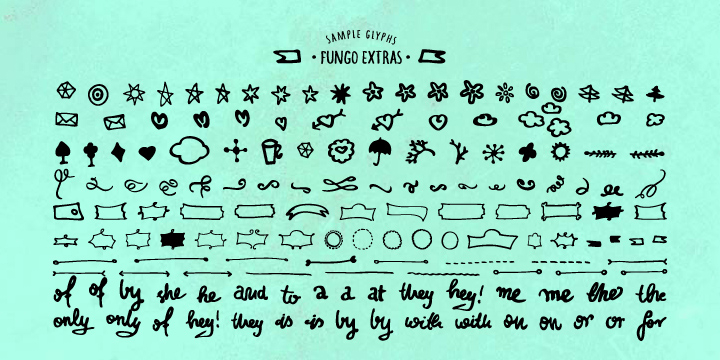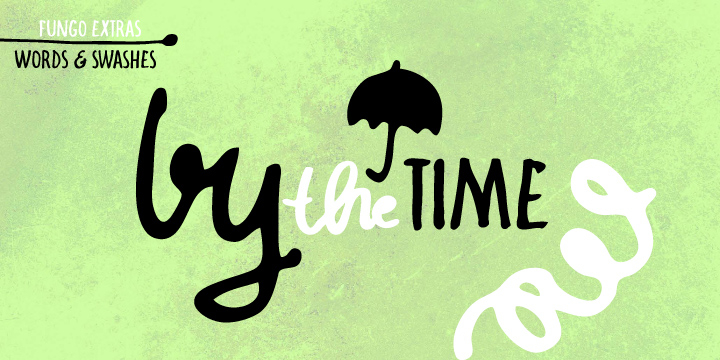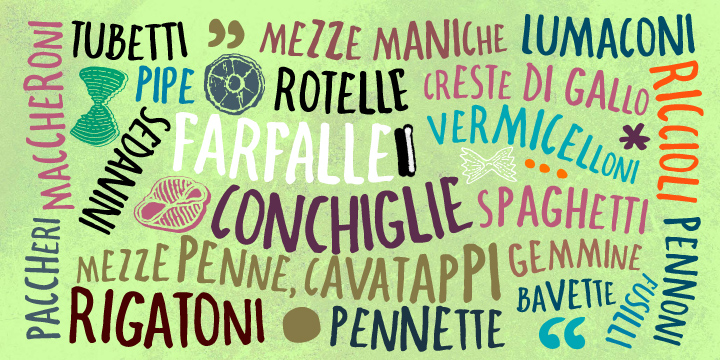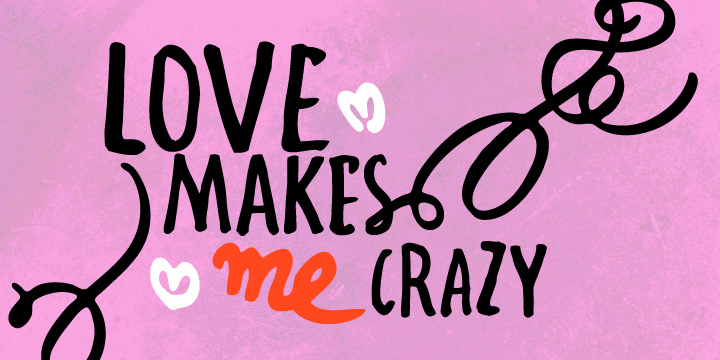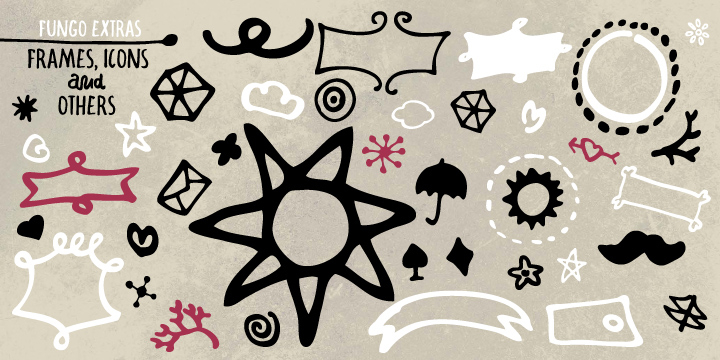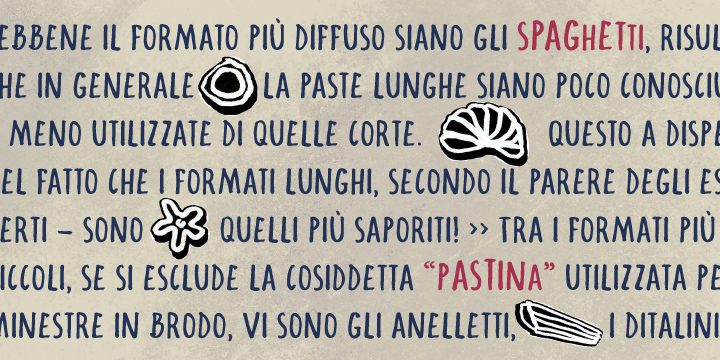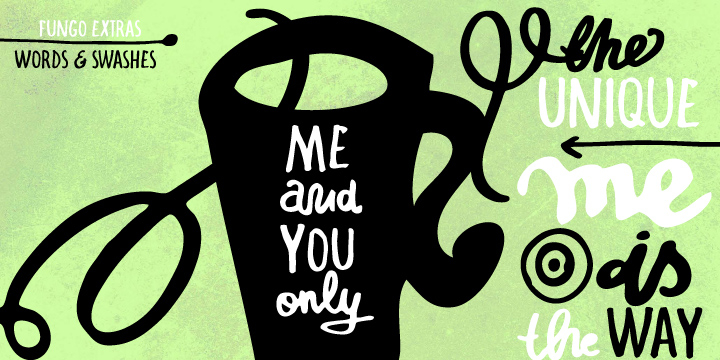
Designed by Magdalena Boffito, Fungo is a dingbat and hand drawn font family. This typeface has two styles and was published by mezzo-mezzo.
Fungo is a handwritten font designed with flat marker. It brings 3 alternates for each letter and number (426 Glyphs).
Fungo Extras offers a large set of graphic extras, including words, icons, frames, line breaks, swashes, and others (this set contains over 150 Glyphs).